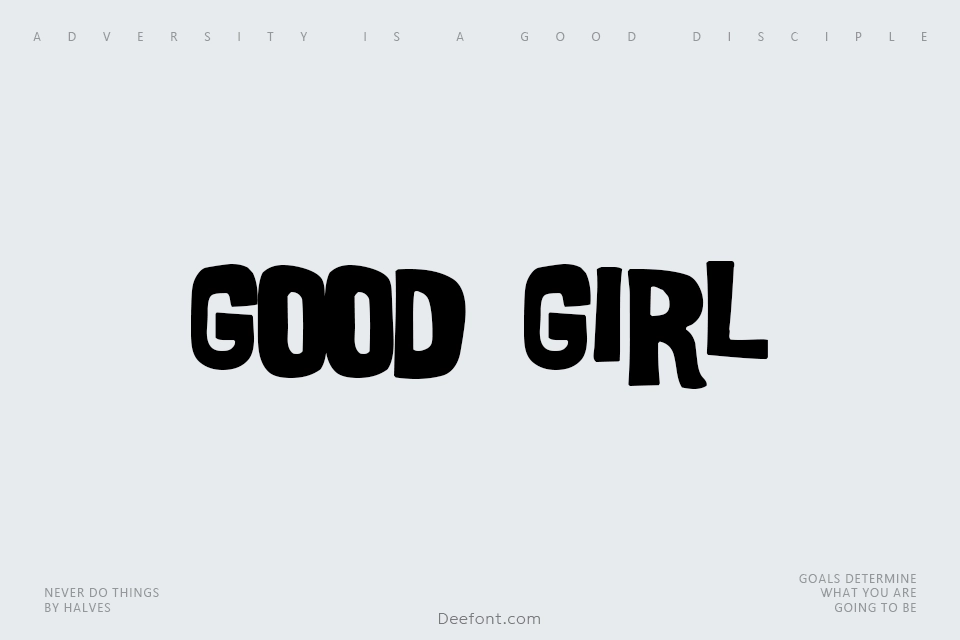
Good Girl Font
Good Girl is a bold, playful display typeface inspired by vintage 1960s hand-lettering and Modern Teen magazine aesthetics. Created by designer Cathy Davies, this charming cartoon font features a whimsical, energetic style perfect for headlines, posters, packaging, and creative projects. With its distinctive quirky character and widespread appeal, it has garnered over 290,000 downloads. The typeface combines decorative flair with playful femininity, making it ideal for designs that require eye-catching, fun, and memorable typography.